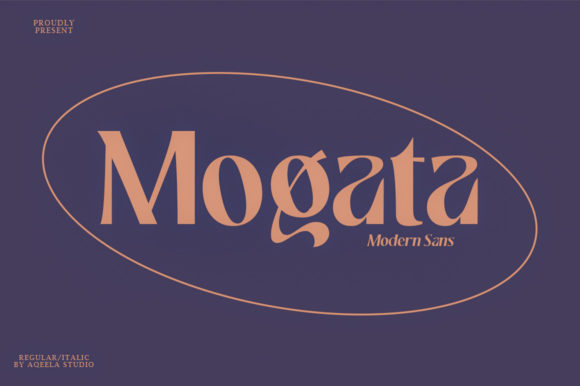
Introducing Mogata, the captivating slab serif font family that's perfect for modern logos and beyond. Designed by the renowned Aqeela Studio, Mogata is a versatile font that works wonders in both large and small sizes, seamlessly adapting to your creative needs. Its stunning alternates, ligatures, and special glyphs add a touch of elegance to your designs, while multilingual support ensures it's accessible to a global audience.
Unleash your creativity and craft logos that exude sophistication and charm. Mogata's modern slab serif structure is perfect for creating timeless logos that stand out from the crowd. Its clean lines and sharp angles lend a sense of authority and professionalism to your designs, making it the perfect choice for businesses looking to make a lasting impression.
But Mogata's versatility doesn't stop at logos. It shines in editorial projects, where its distinctive style adds a touch of refinement and readability. Create magazine headers that captivate readers and leave a lasting impression. Its versatility extends to clothing branding, product packaging, and more.
Imagine your designs adorned with Mogata's beautiful alternates and ligatures, adding a touch of intrigue and personality. Create product packaging that demands attention on the shelves or design clothing lines that speak to style-conscious consumers.
Mogata is more than just a font; it's a gateway to a world of creative possibilities. Its elegant curves and sharp edges dance together, creating a visual masterpiece that elevates your designs. Whether you're a seasoned designer or just starting, Mogata is the perfect font to add a touch of sophistication and modernity to your work.